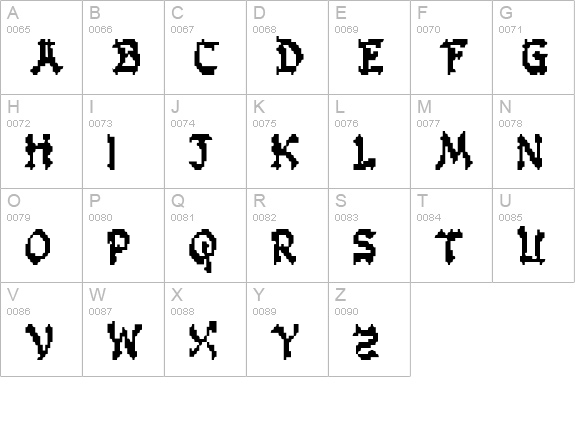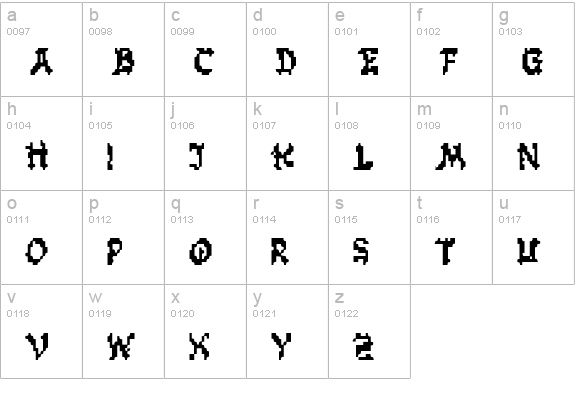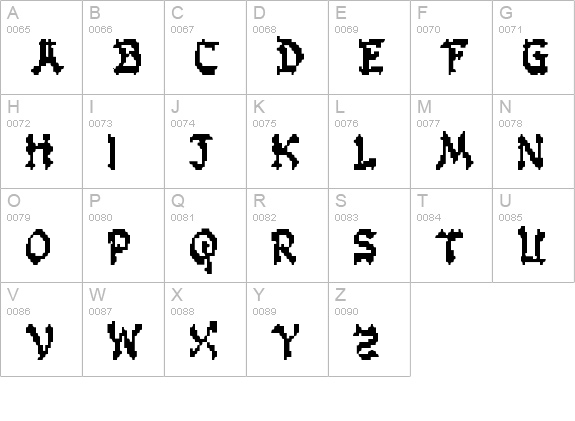
Introducing Zen Masters font, a harmonious blend of elegance and serenity designed to bring a sense of peace and mindfulness to your creative projects. This exquisite typeface embodies the wisdom and tranquility of ancient Zen teachings, making it the perfect choice for conveying a sense of balance and calmness in your designs. With its graceful strokes and balanced proportions, Zen Masters font exudes a timeless beauty that is sure to captivate your audience. Whether you're working on a branding project, a book cover, or a meditation app, this font will add a touch of sophistication and refinement to your work. Best of all, Zen Masters font is available for free download at FontsMarket.com, making it accessible to everyone who seeks to infuse their designs with a touch of Zen-inspired grace. Embrace the tranquility and elegance of Zen Masters font today and let your creativity flow freely.